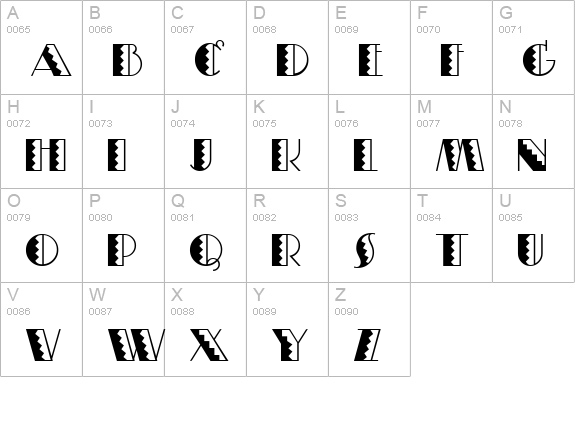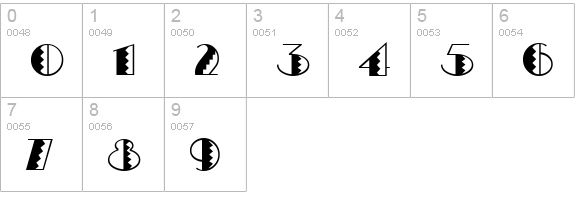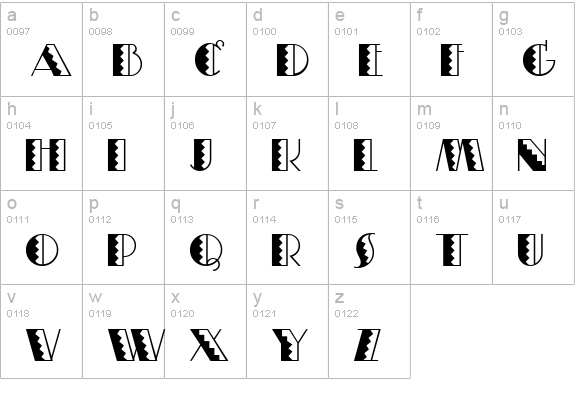
BessieMaeMoochoNF Font Details
BessieMaeMoochoNF font is a charming and whimsical typeface that exudes a playful and friendly vibe. Its unique and fun design makes it perfect for a variety of creative projects, from invitations to branding and more. The delightful curves and quirky details of this font add a touch of personality to any text, making it stand out and capture attention. What makes BessieMaeMoochoNF font even more special is that it is available for free download at FontsMarket.com. This means that you can easily access this adorable font and use it in your projects without any cost. With its free availability, there's no reason not to add BessieMaeMoochoNF font to your font collection and bring a fun and playful touch to your designs.